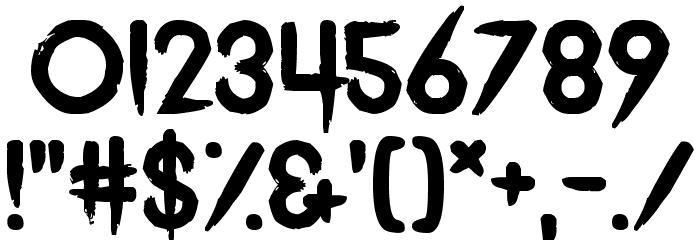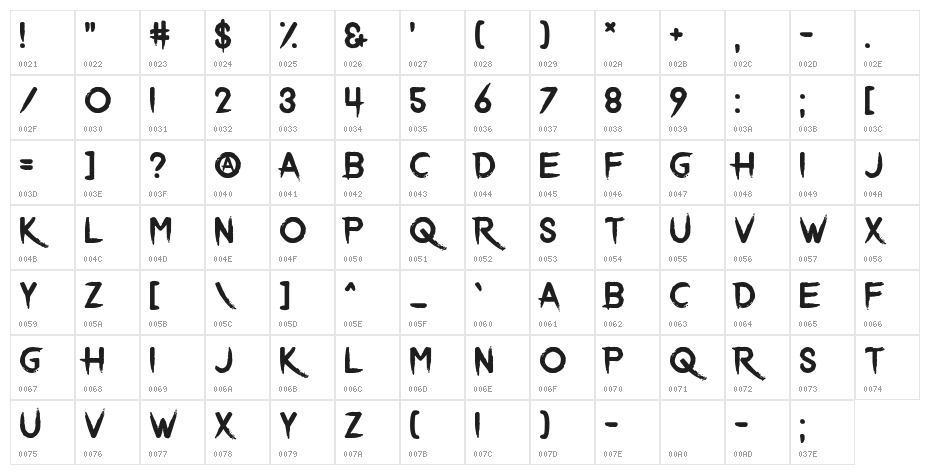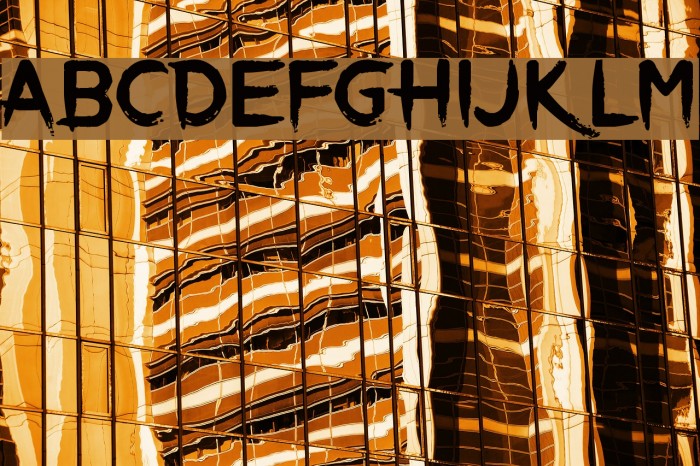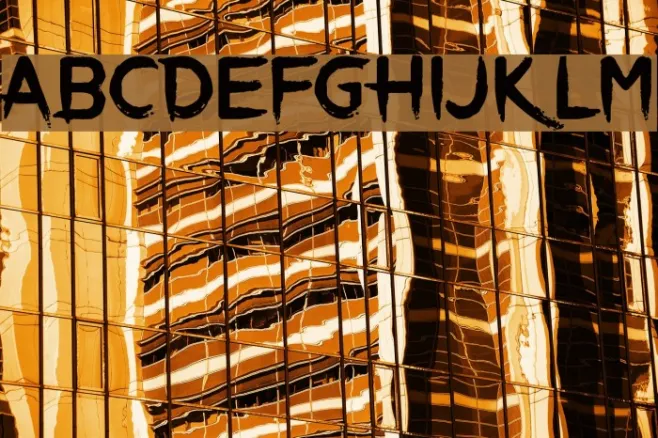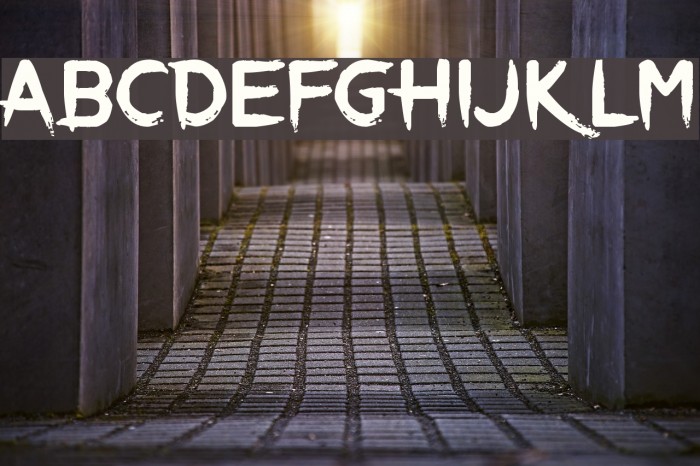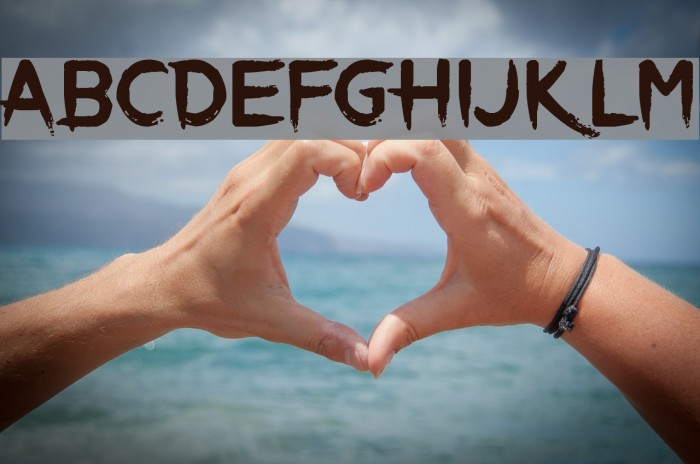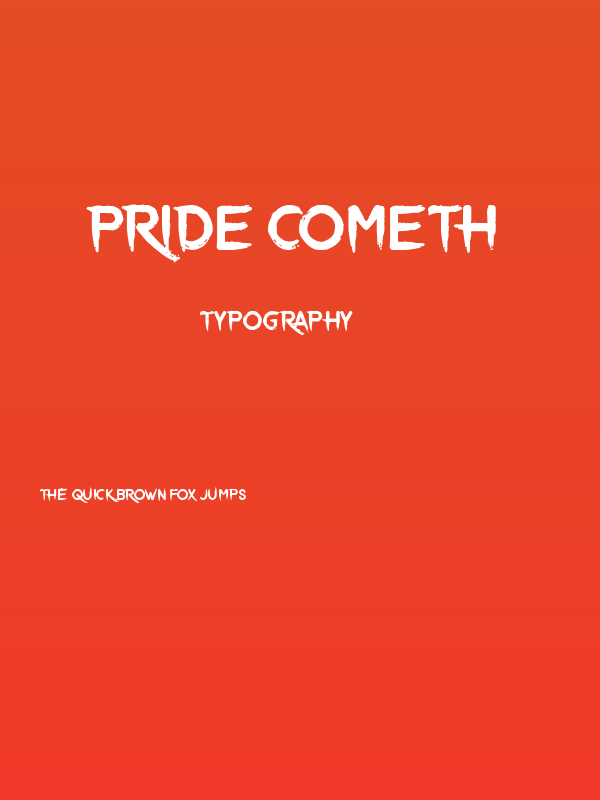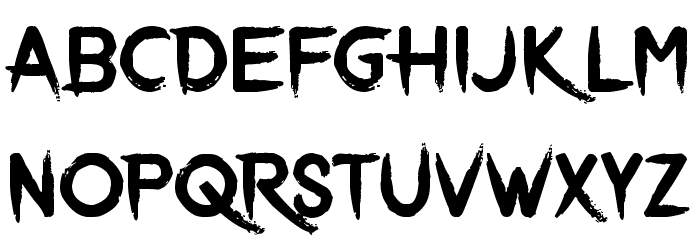
Pride Cometh Font
Pride Cometh Description
This font features a bold, brush-like style with a hand-painted appearance. The strokes are uneven, giving it a dynamic and energetic feel. The uppercase letters are bold and slightly slanted, while the lowercase letters maintain a consistent style with a more compact form. Numbers and special characters follow the same brushstroke aesthetic, adding to the cohesive look. The overall impression is one of movement and expressiveness, making it suitable for projects that require a strong visual impact.
| Proposed Projects | Ideal for posters, album covers, branding materials, and any project that requires a bold, artistic touch. |